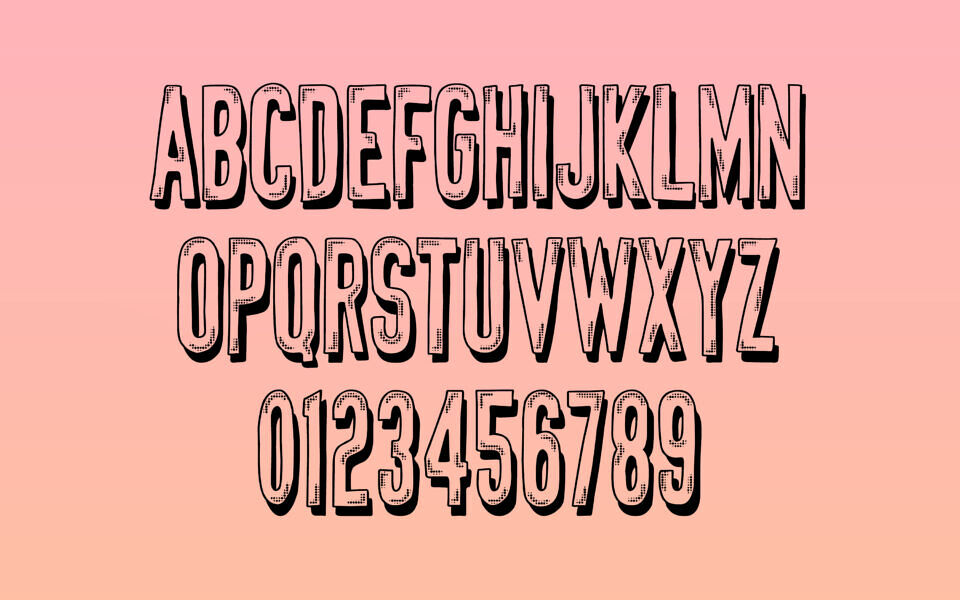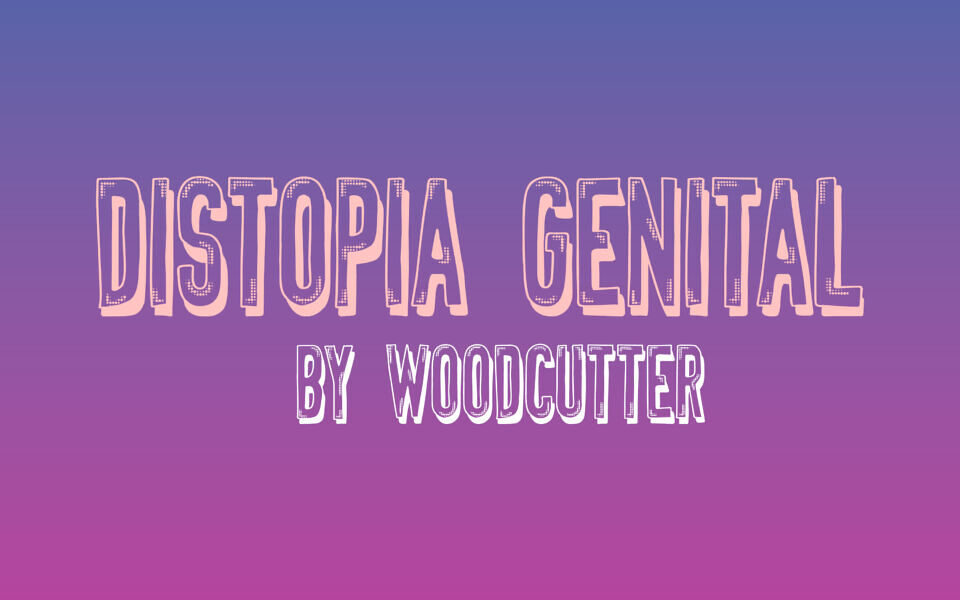
Distopia Genital by Woodcutter is a bold, uppercase display font with a strong, textured character. Its rounded letterforms feature a noticeable outline and a rough, almost concrete-like fill, creating a slightly industrial and impactful appearance.
The font exudes a sense of strength and rawness, making it suitable for headlines, posters, and designs that require a powerful and somewhat edgy visual impact. Its unique style ensures it stands out and grabs attention.